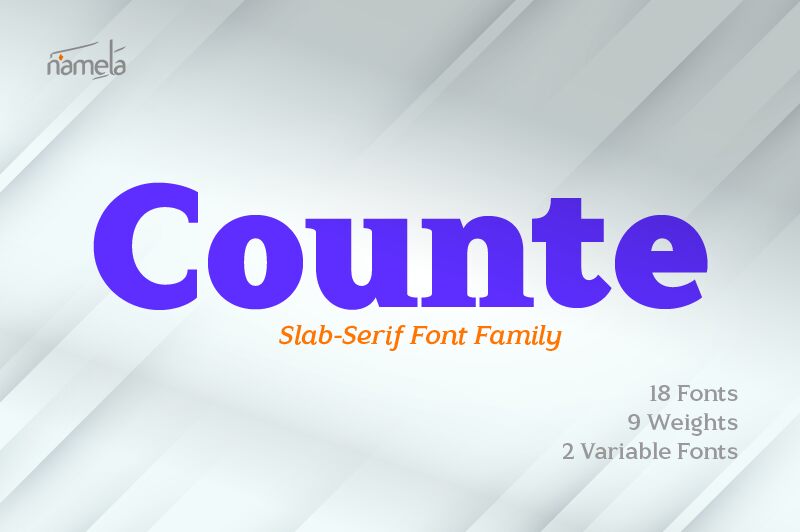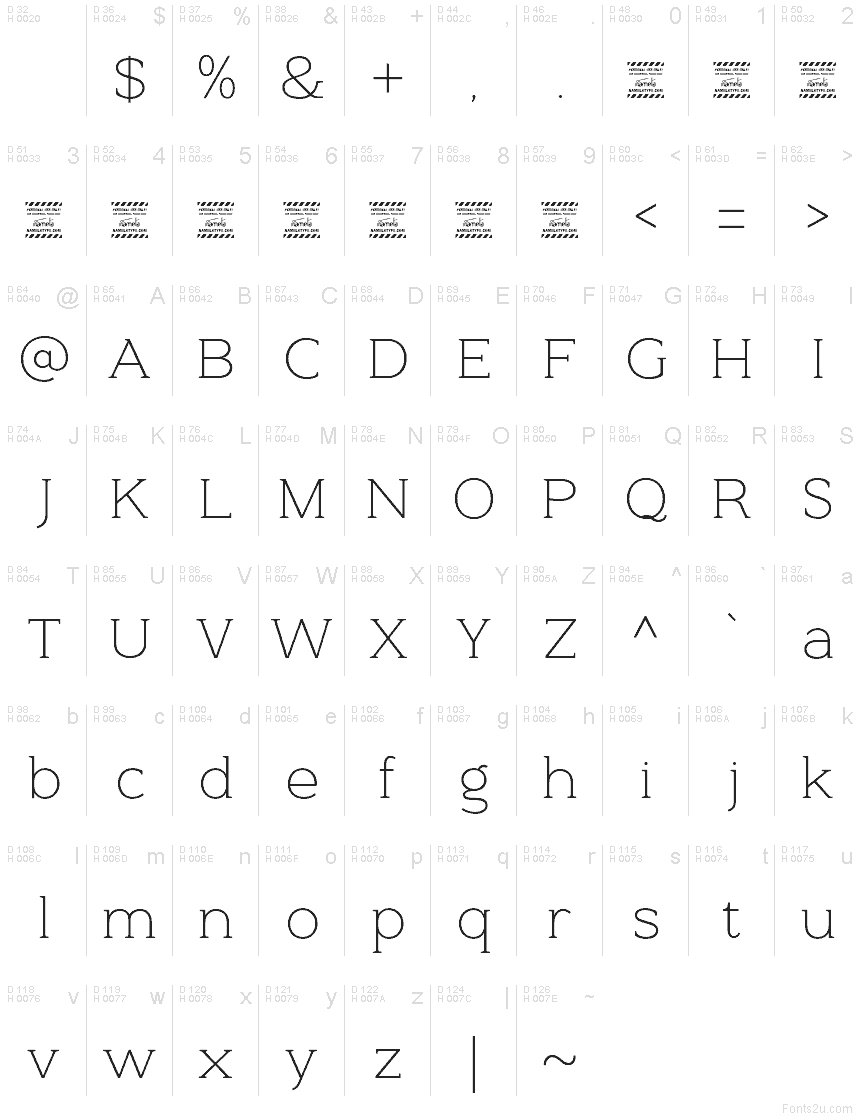
Counte Thin font by Namela Type is an elegant and sophisticated flared serif font with a subtle formal appeal. Its light weight and refined style give it a classic look that can elevate any design project with its timeless aesthetic.
Counte DEMO Thin